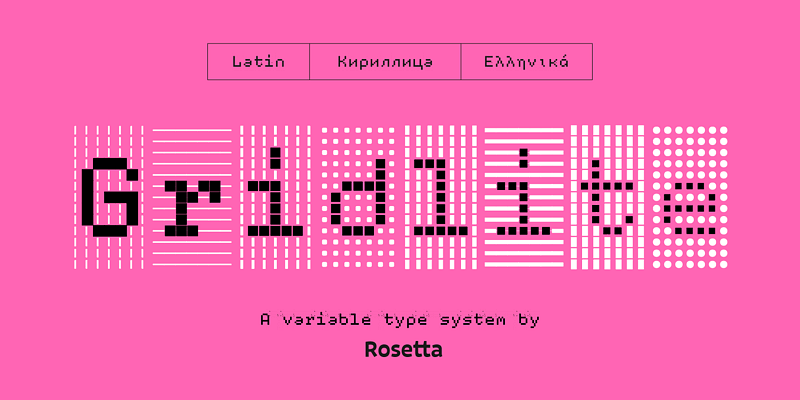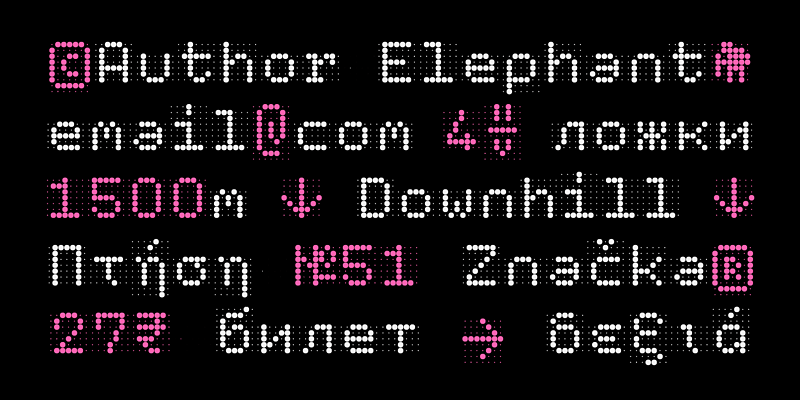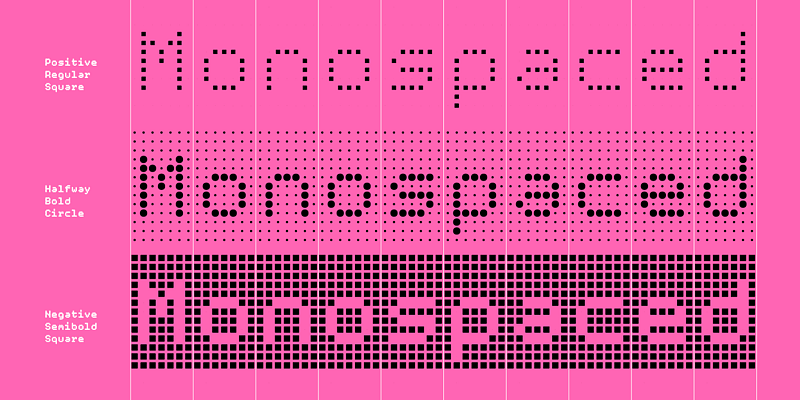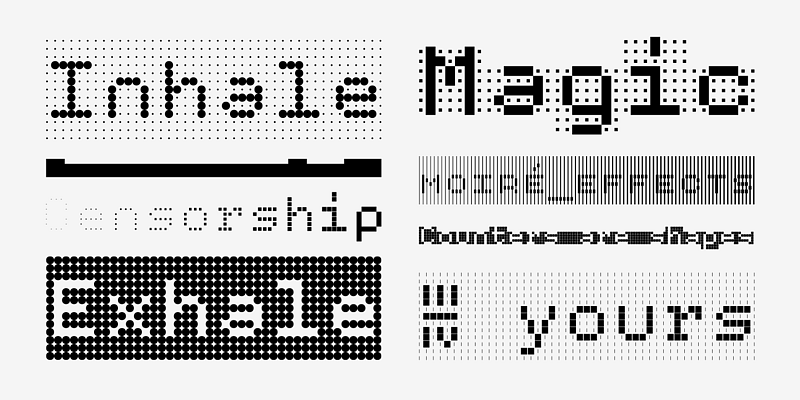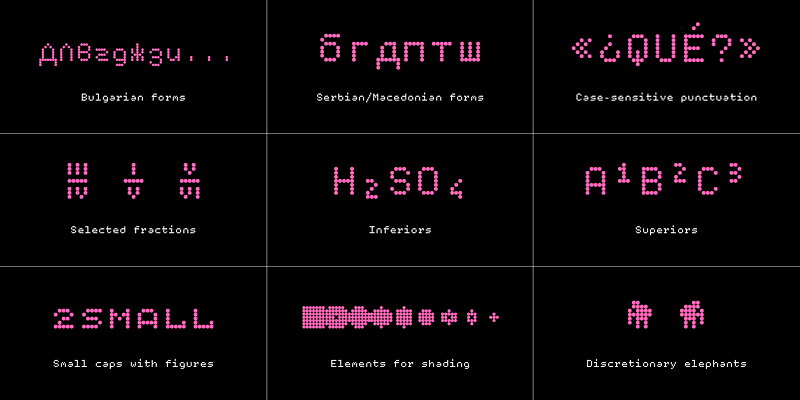
Gridlite, an experiment with a modular negative space, is a simplified and monospaced variable font ready to be animated, typed, scaled up, scaled down, rounded, or otherwise deformed.